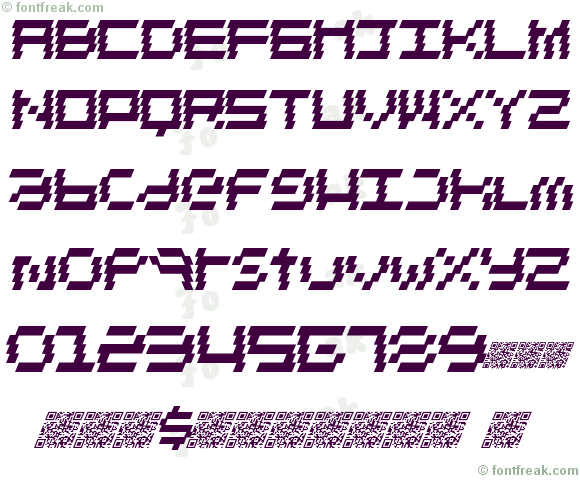
ElectroHouse
About ElectroHouse
ElectroHouse by Xerographer Fonts is an eye-catching display typeface that embodies a modern, digital aesthetic. This font features a distinctive, geometric style characterized by its bold, angular letterforms, making it an exceptional choice for projects that aim to capture attention. The stroke weight varies throughout the characters, creating a dynamic visual effect that enhances its contemporary appeal. The spacing between the letters is carefully designed to maintain readability while emphasizing the font's unique characteristics.
This font is particularly well-suited for a variety of creative applications. It can elevate the design of event flyers, especially for electronic music events or nightlife promotions. Additionally, its striking style makes it an excellent choice for album covers, ensuring that the title stands out in any music collection. ElectroHouse can also be effectively used in branding for tech startups or modern cafes, providing a fresh and innovative look to logos and signage. Content creators will find that this font adds a unique flair to their social media graphics, making posts pop in a crowded digital landscape.
The target audience for ElectroHouse includes graphic designers looking to create visually compelling projects, small business owners seeking a standout font for branding, and content creators who want to add a modern touch to their designs.
What makes the ElectroHouse font stand out is its blend of boldness and creativity, perfect for capturing the essence of contemporary culture. Its freeware license allows easy access for anyone looking to enhance their design toolkit. For those interested in this striking typeface, the ElectroHouse font free download provides an opportunity to incorporate a unique visual style into various projects without any cost.